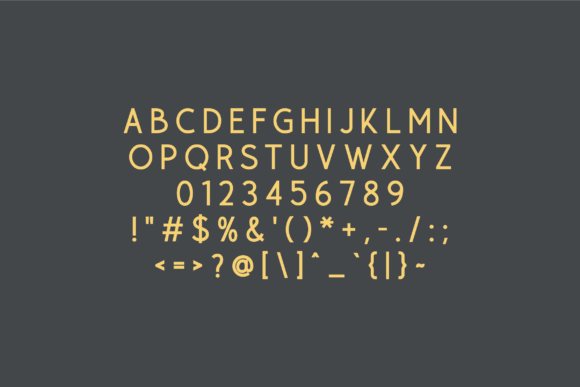
Introducing Fluffernix Font: A Modern, Classy Sans Serif Typeface
In the world of typography, a new font has emerged that is taking the design community by storm. Meet Fluffernix, a modern, classy sans serif typeface that is perfect for a wide range of design projects. Whether you’re looking to create a stunning logo, elegant wedding invitation, or eye-catching advertisement, Fluffernix is the perfect choice.
What is Fluffernix Font?
Fluffernix is a sans serif typeface that features upper characters, numbers 0-9, and a range of punctuation and symbols. Its clean and minimalist design makes it an extremely versatile font that can be used in a variety of contexts. From print materials like magazines and brochures to digital applications like websites and social media graphics, Fluffernix is the perfect font for any design project.
Key Features of Fluffernix Font
So, what makes Fluffernix stand out from other fonts? Here are some of its key features:
- Modern and Classy Design: Fluffernix has a sleek and sophisticated design that is perfect for modern designs.
- Upper Characters, Numbers, and Symbols: The font features a range of upper characters, numbers 0-9, and punctuation and symbols.
- Versatile: Fluffernix can be used in a wide range of design projects, from logos and wedding invitations to advertisements and print materials.
- Easy to Read: The font is clean and easy to read, making it perfect for body text and headlines.
Use Cases for Fluffernix Font
Fluffernix is an extremely versatile font that can be used in a wide range of design projects. Here are some use cases where Fluffernix excels:
Logos
Fluffernix is perfect for creating modern and classy logos that make a statement. Its clean design and versatility make it an excellent choice for logos that need to be scalable.
Weddings and Invitations
Fluffernix is a great choice for wedding invitations, save-the-date cards, and other formal events. Its elegant design and classic feel make it perfect for creating beautiful and memorable invitations.
Advertisements
Fluffernix is an excellent choice for advertisements that need to make a statement. Its modern design and versatility make it perfect for creating eye-catching ads that grab attention.
Print Materials
Fluffernix is perfect for print materials like magazines, brochures, and flyers. Its clean design and easy readability make it an excellent choice for body text and headlines.
Why Choose Fluffernix Font?
So, why should you choose Fluffernix over other fonts? Here are some reasons:
- Unique Design: Fluffernix has a unique and modern design that sets it apart from other fonts.
- Versatility: The font is extremely versatile and can be used in a wide range of design projects.
- Easy to Read: Fluffernix is clean and easy to read, making it perfect for body text and headlines.
- High-Quality: The font is of high-quality and is perfect for professional designs.
In conclusion, Fluffernix is a modern, classy sans serif typeface that is perfect for a wide range of design projects. Its clean design, versatility, and easy readability make it an excellent choice for logos, weddings, invitations, advertisements, print materials, and more. If you’re looking for a font that will elevate your designs, look no further than Fluffernix.
What is Fluffernix font?
Fluffernix is a modern, classy sans serif typeface that features upper characters, numbers 0-9, and a range of punctuation and symbols.
What is Fluffernix font used for?
Fluffernix is perfect for a wide range of design projects, including logos, weddings, invitations, advertisements, print materials, and more.